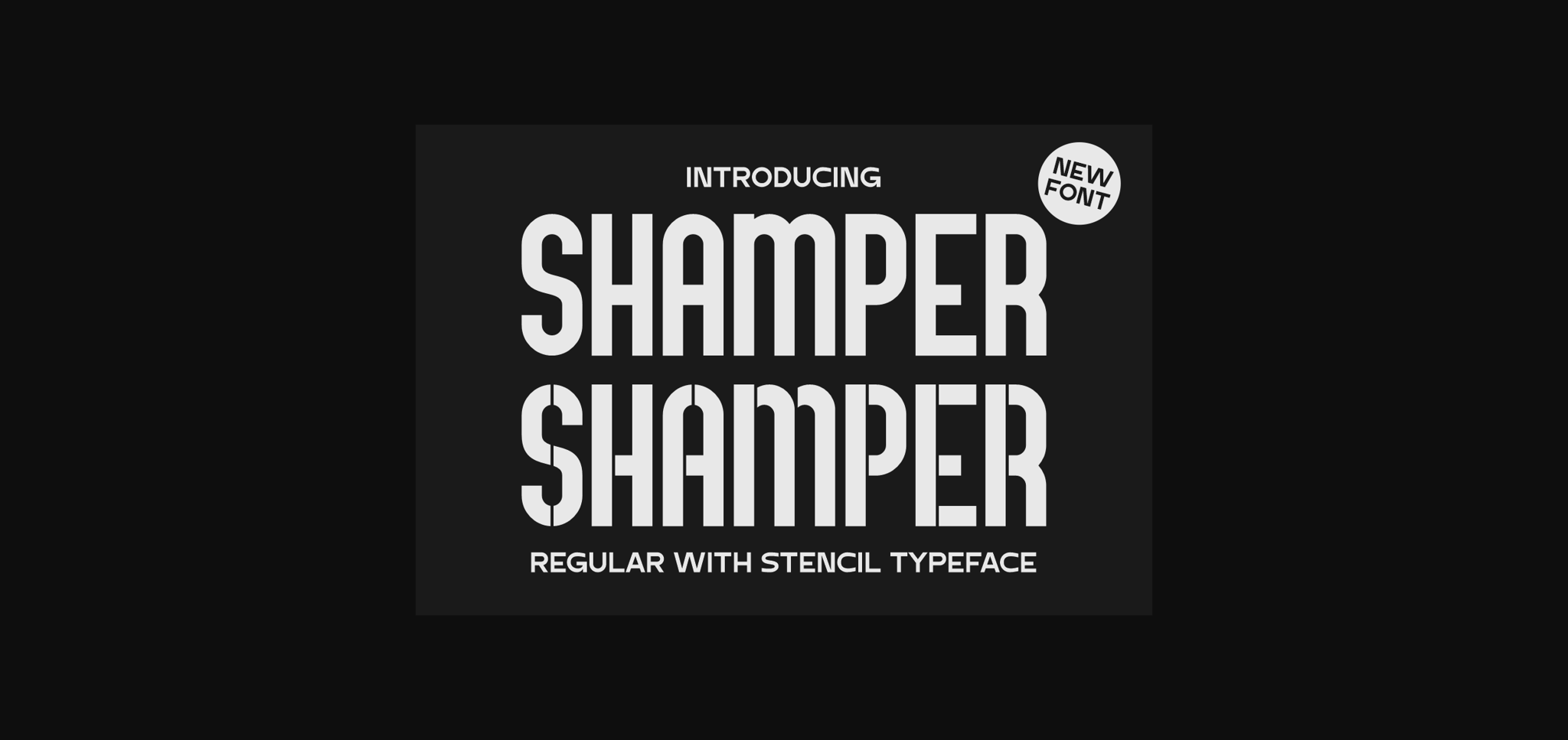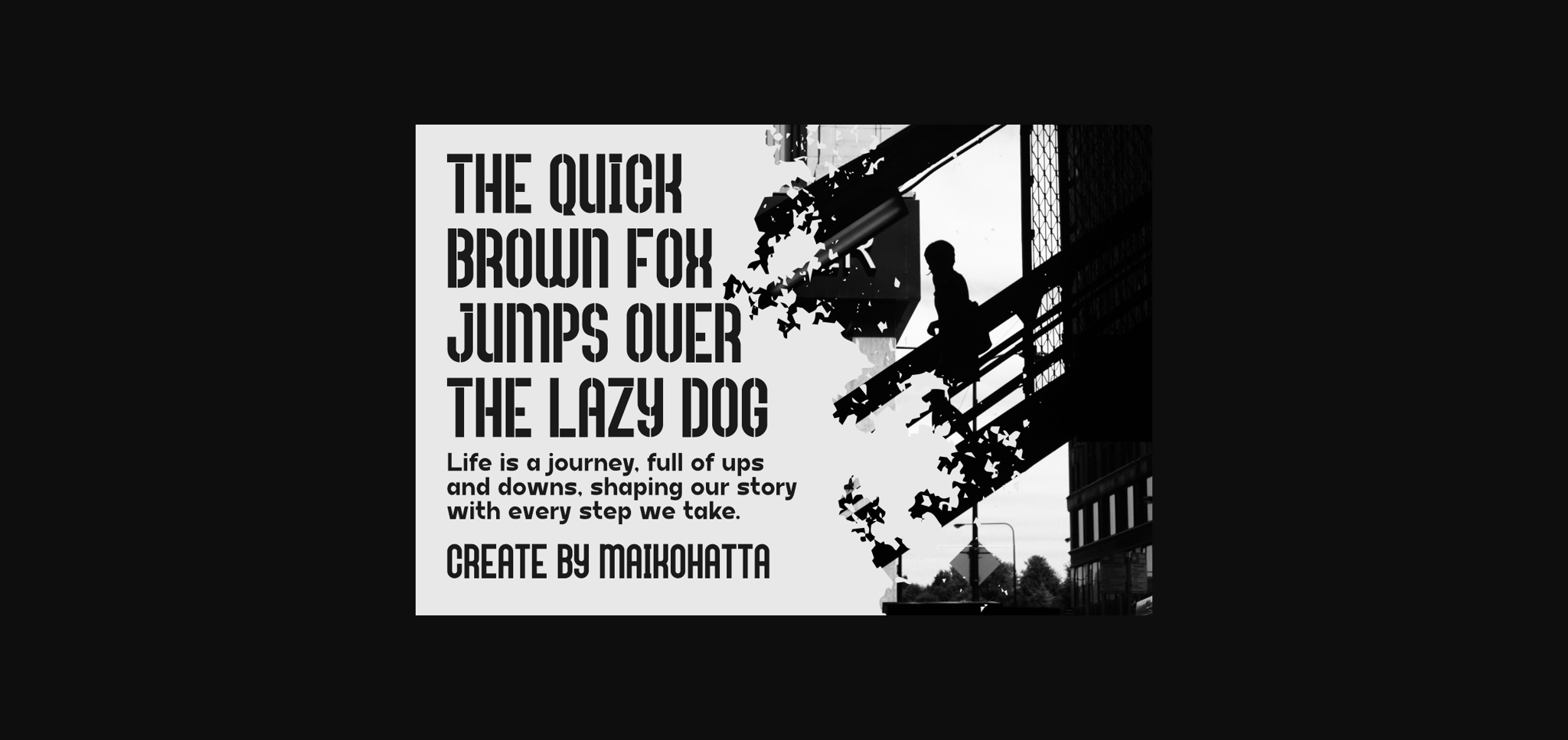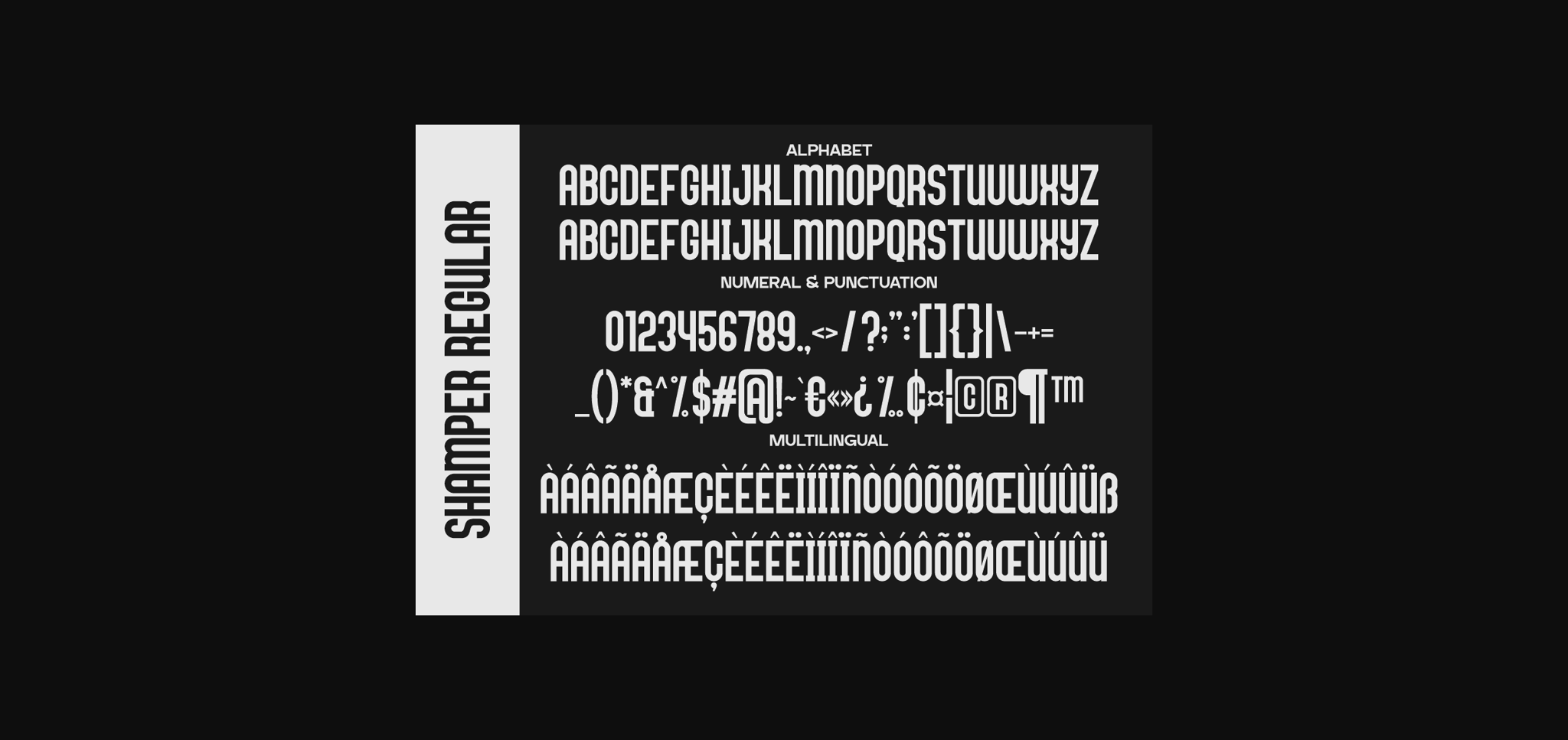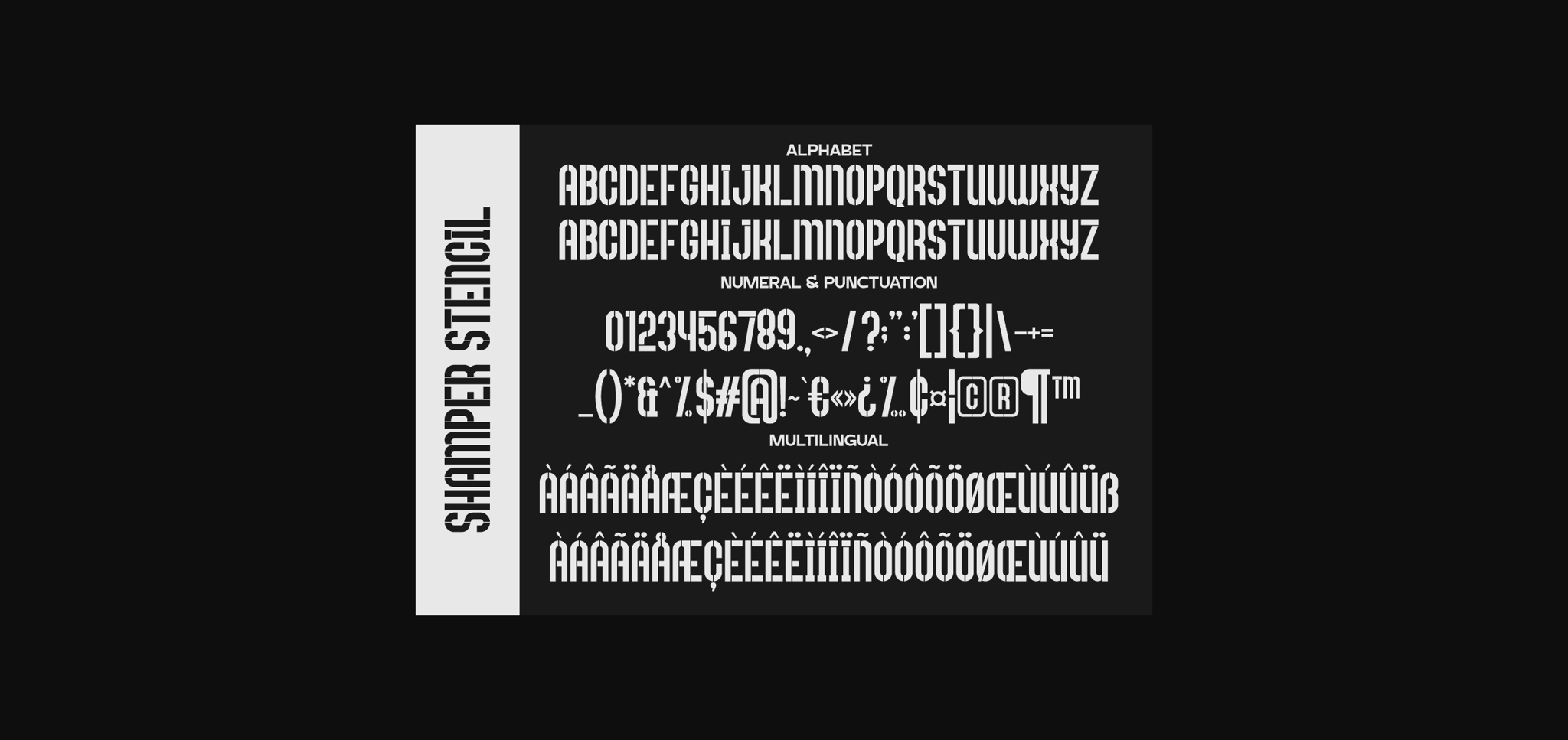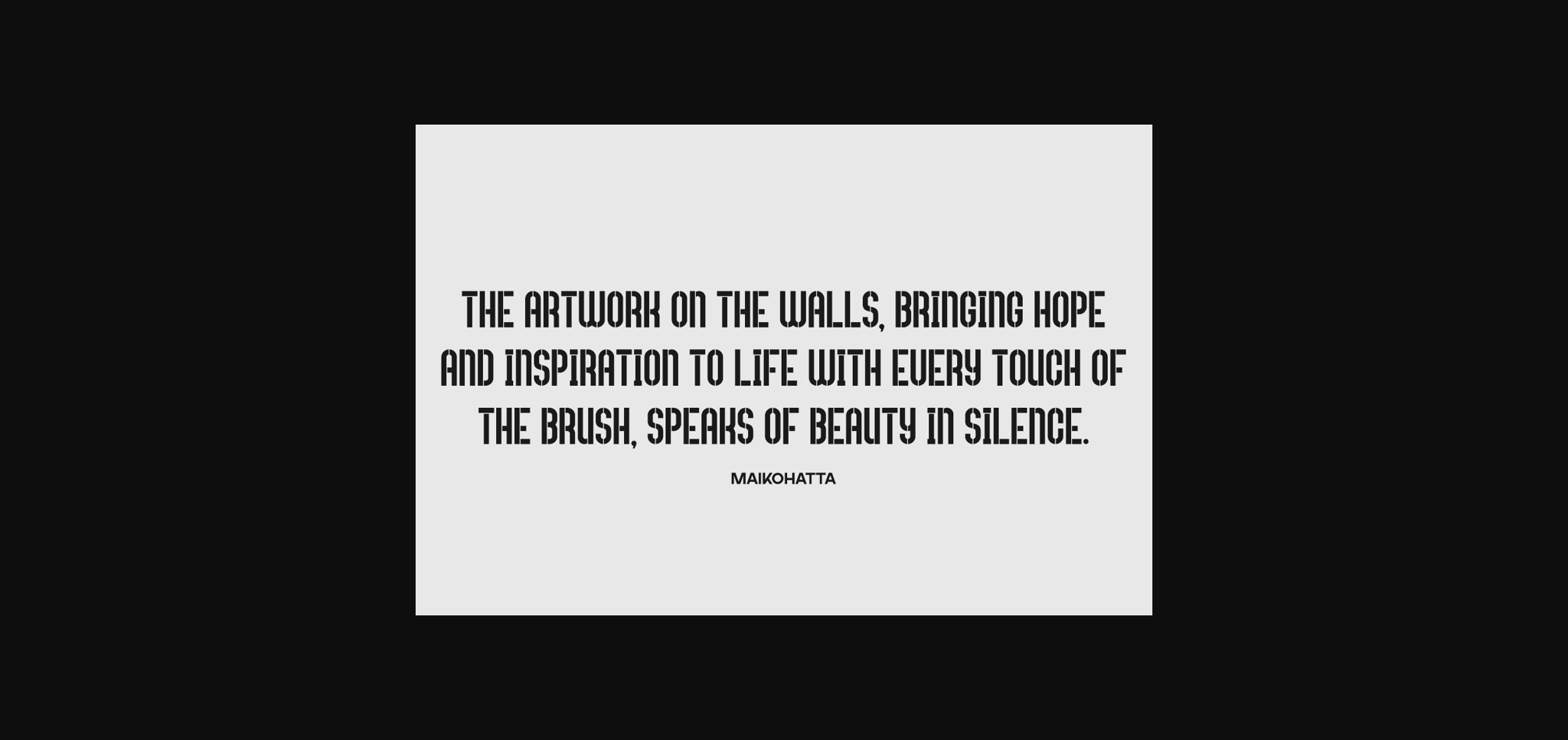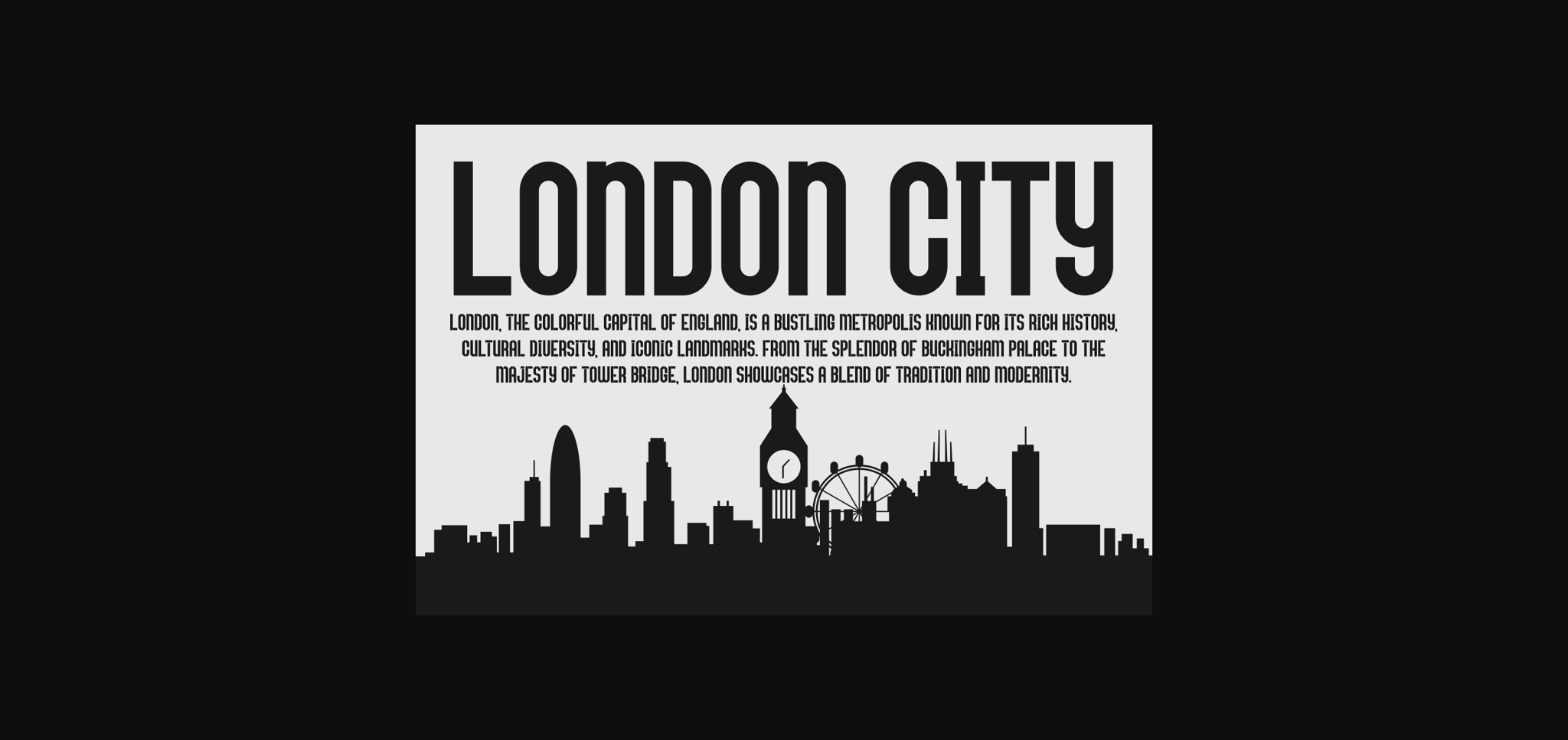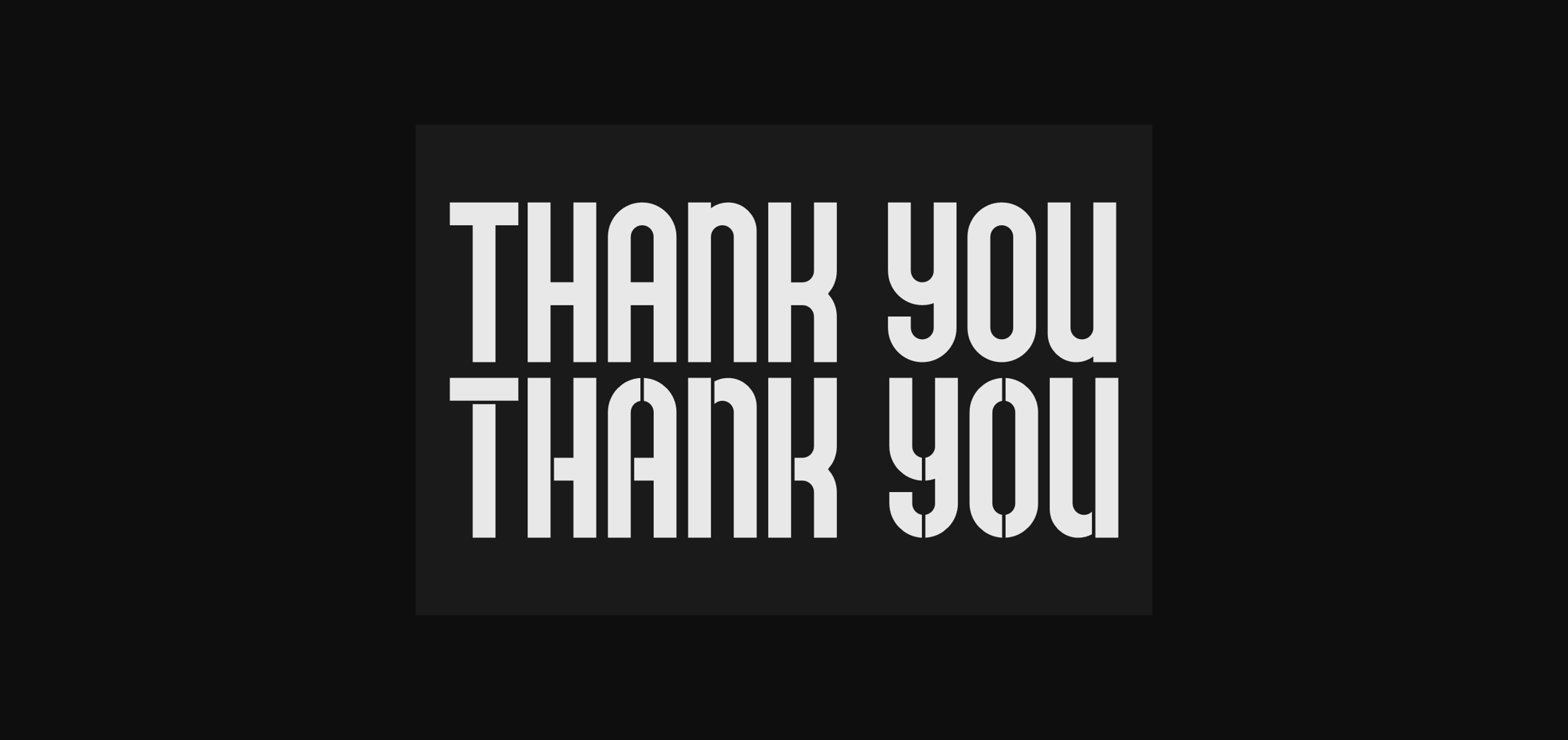
Shamper Font
About Shamper Font
This font has two different but related styles. Regular sans serif has the characteristic of straight lines without additional decoration, while stencil sans serif has the characteristic that there are holes or “cuts” in each letter and symbol. Regular sans serif fonts are suitable for digital designs and plain text, while stencil sans serif fonts are better suited for bold displays such as military designs, highway signs, street art, or industrial design projects.